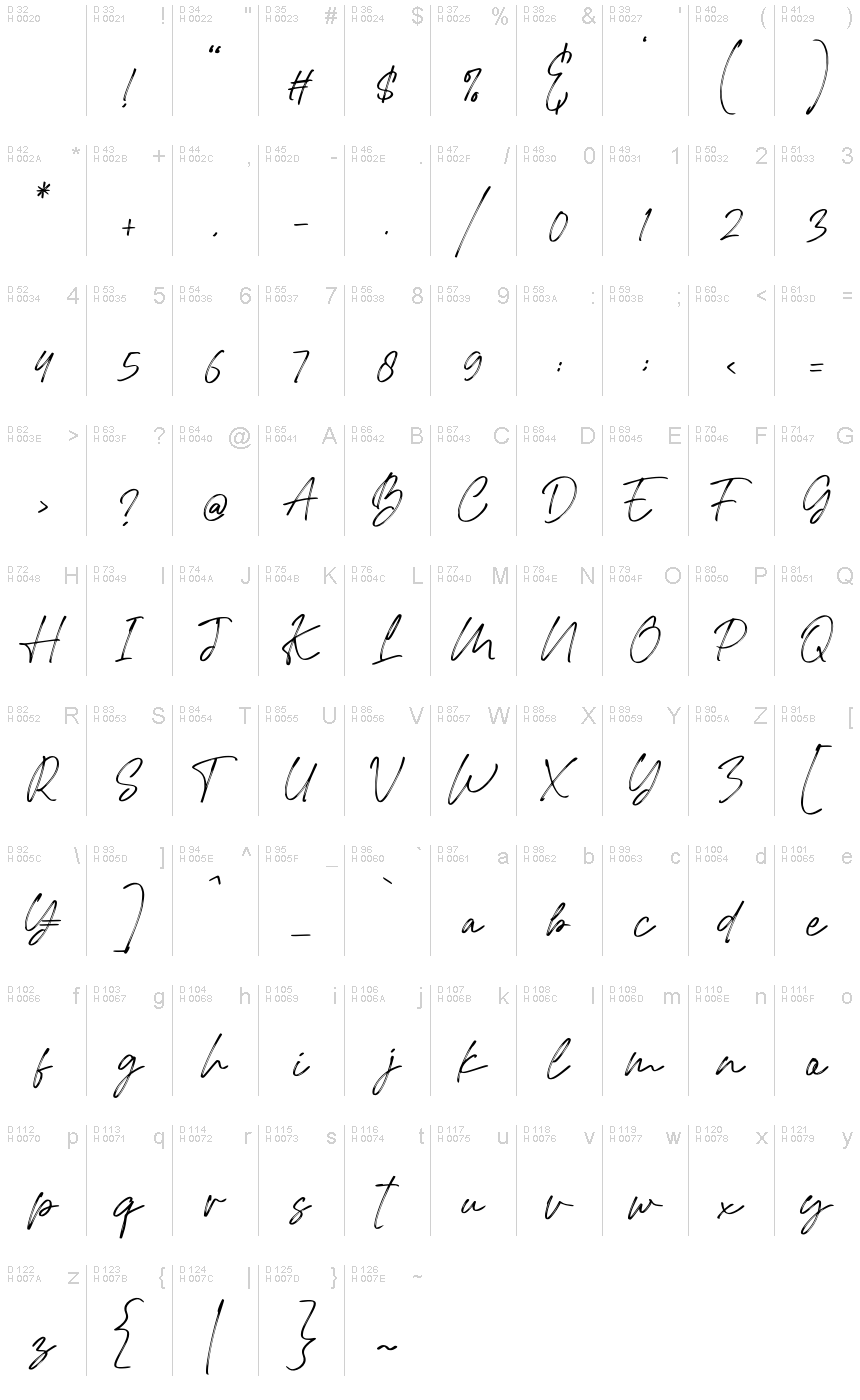
Deitha
Deitha font by Radinal Ridwan captures the elegance of handwritten style with its light and flowing characters. This free font exudes a warm and personal touch that enhances any design project, offering a sense of intimacy and charm. Its smooth curves and graceful lines make it ideal for invitations, greeting cards, and branding projects where a personal touch is essential.
Perfect for designers seeking to add a human element to their work, Deitha’s light style ensures readability while maintaining its artistic flair. Download this free font to infuse your creative projects with personality and sophistication. Ideal for both digital and print media, Deitha offers versatility in usage without compromising on elegance.
Whether crafting logos or social media content, this handwritten font elevates your designs effortlessly.